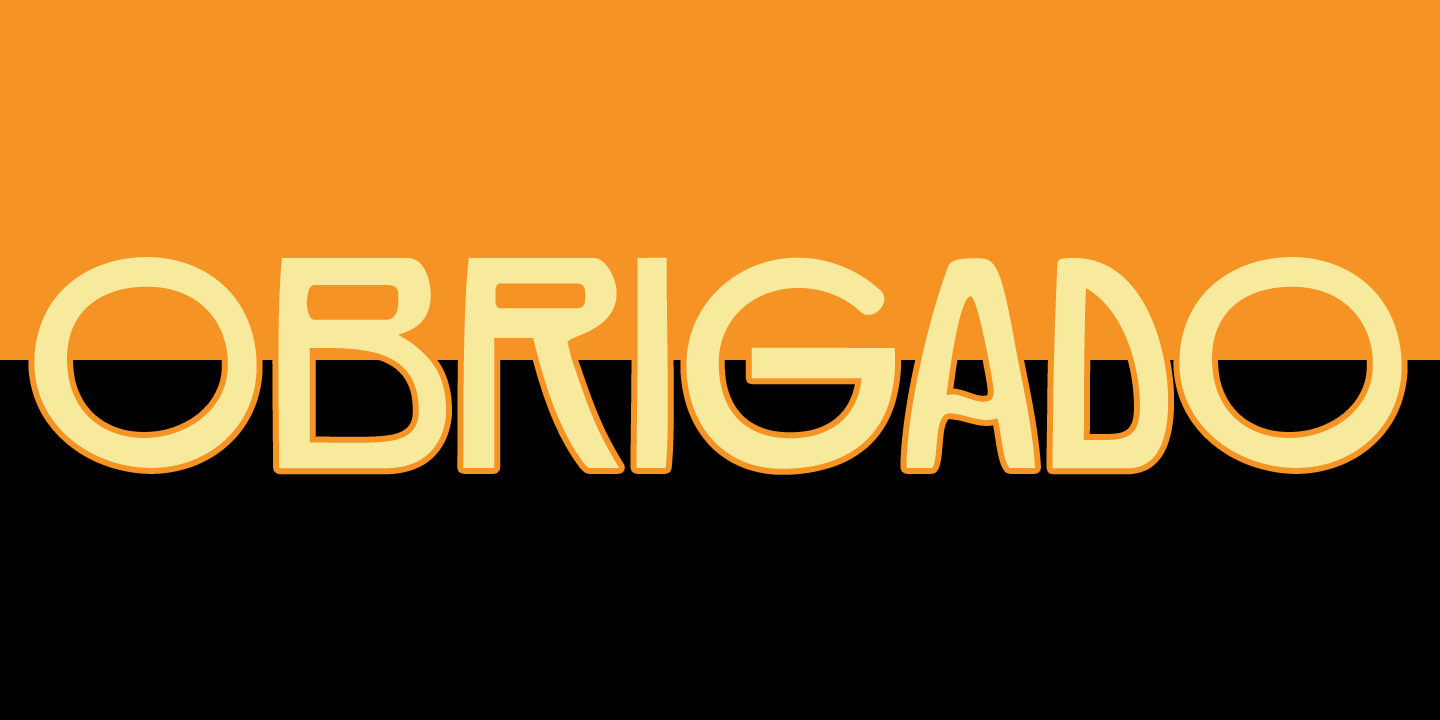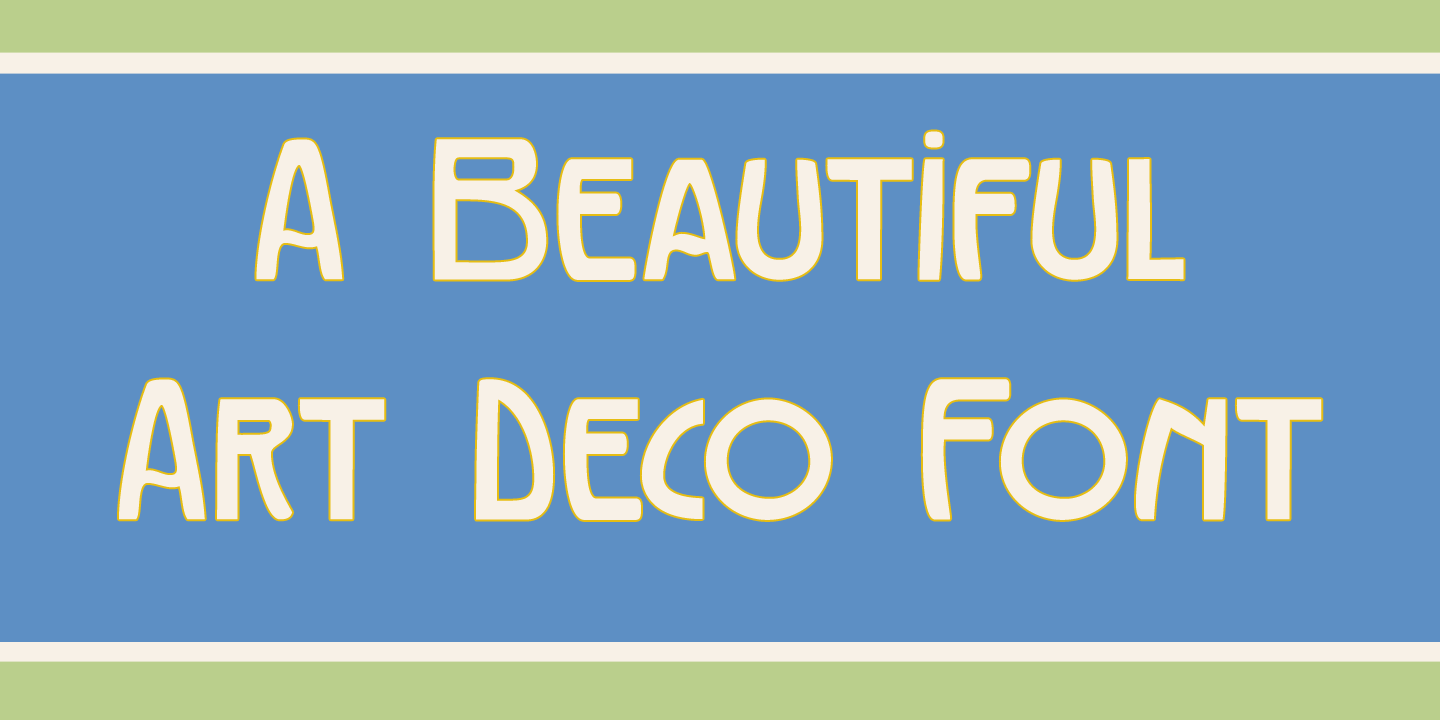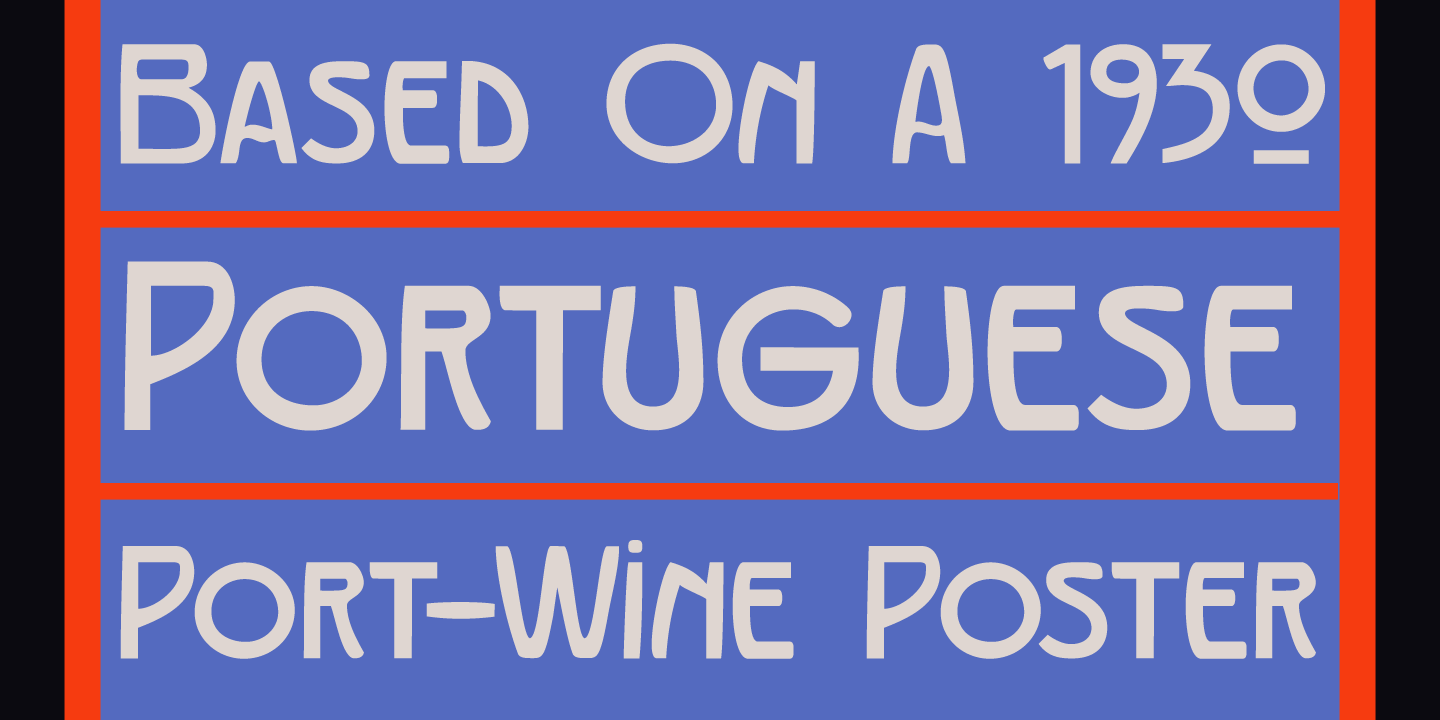
Obrigado
Obrigado means ?Thank You? in Portuguese. It is my way of saying thanks to the unknown designer of a Portuguese port-wine poster from the thirties. Obrigado font is based on that poster. As I had to work with a handful of glyphs, I designed the missing ones myself.
Obrigado is a quite elegant and refined art deco font, which would be ideal for posters and logos. Obrigado speaks most Roman based languages.